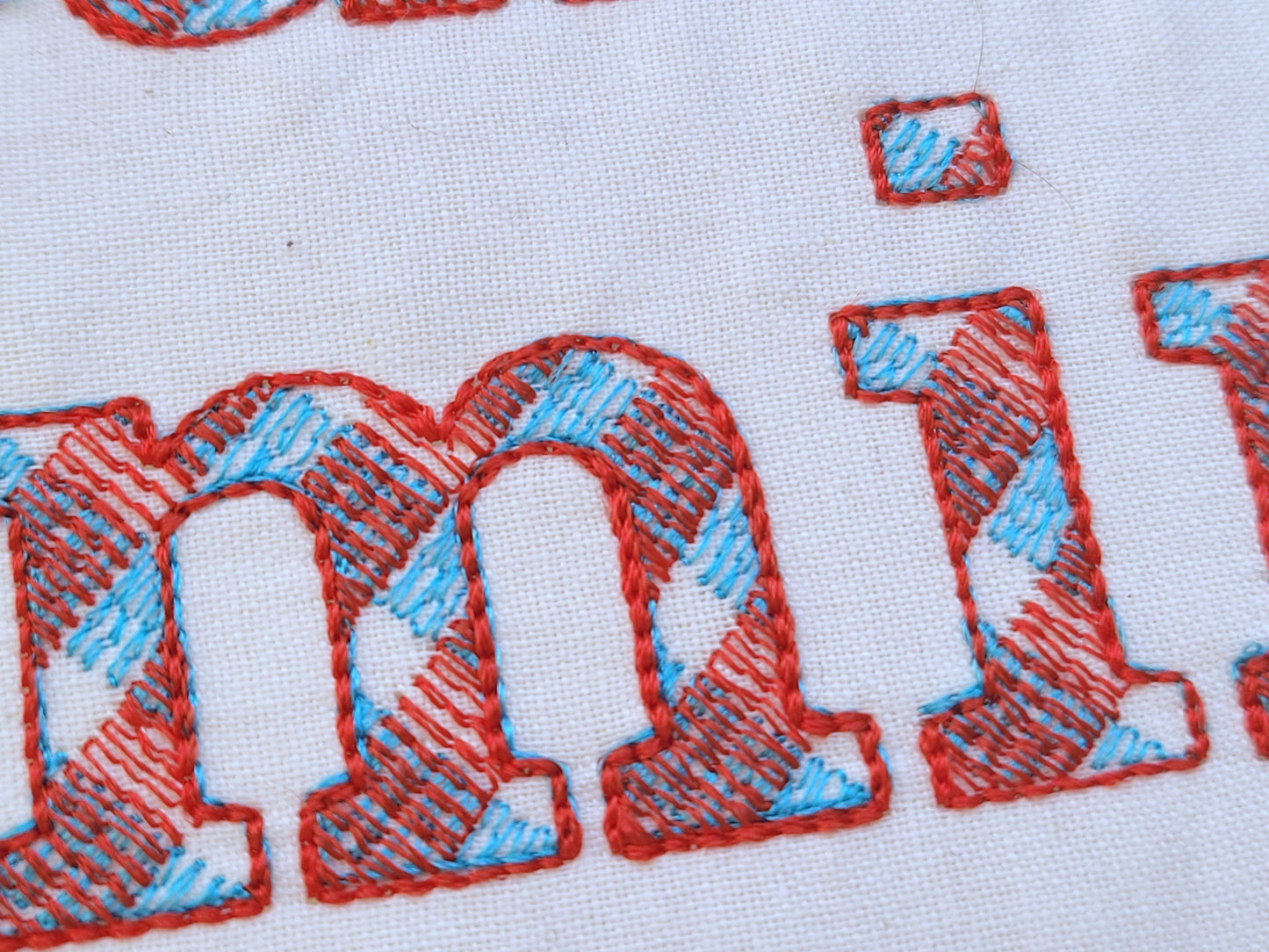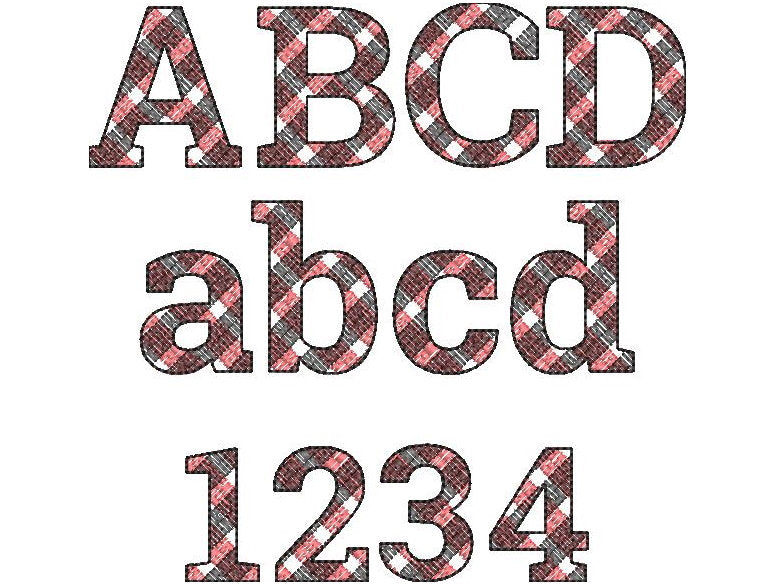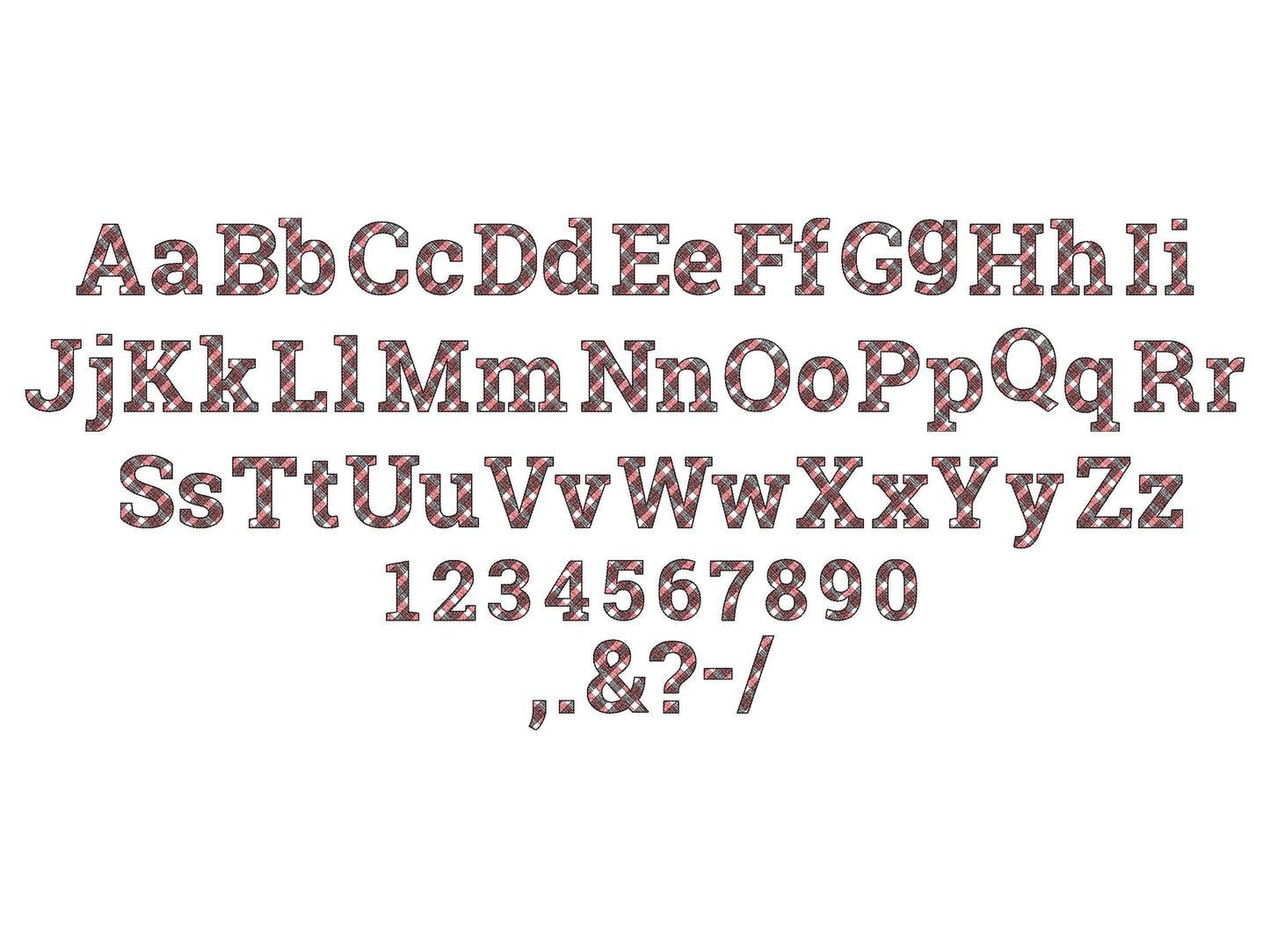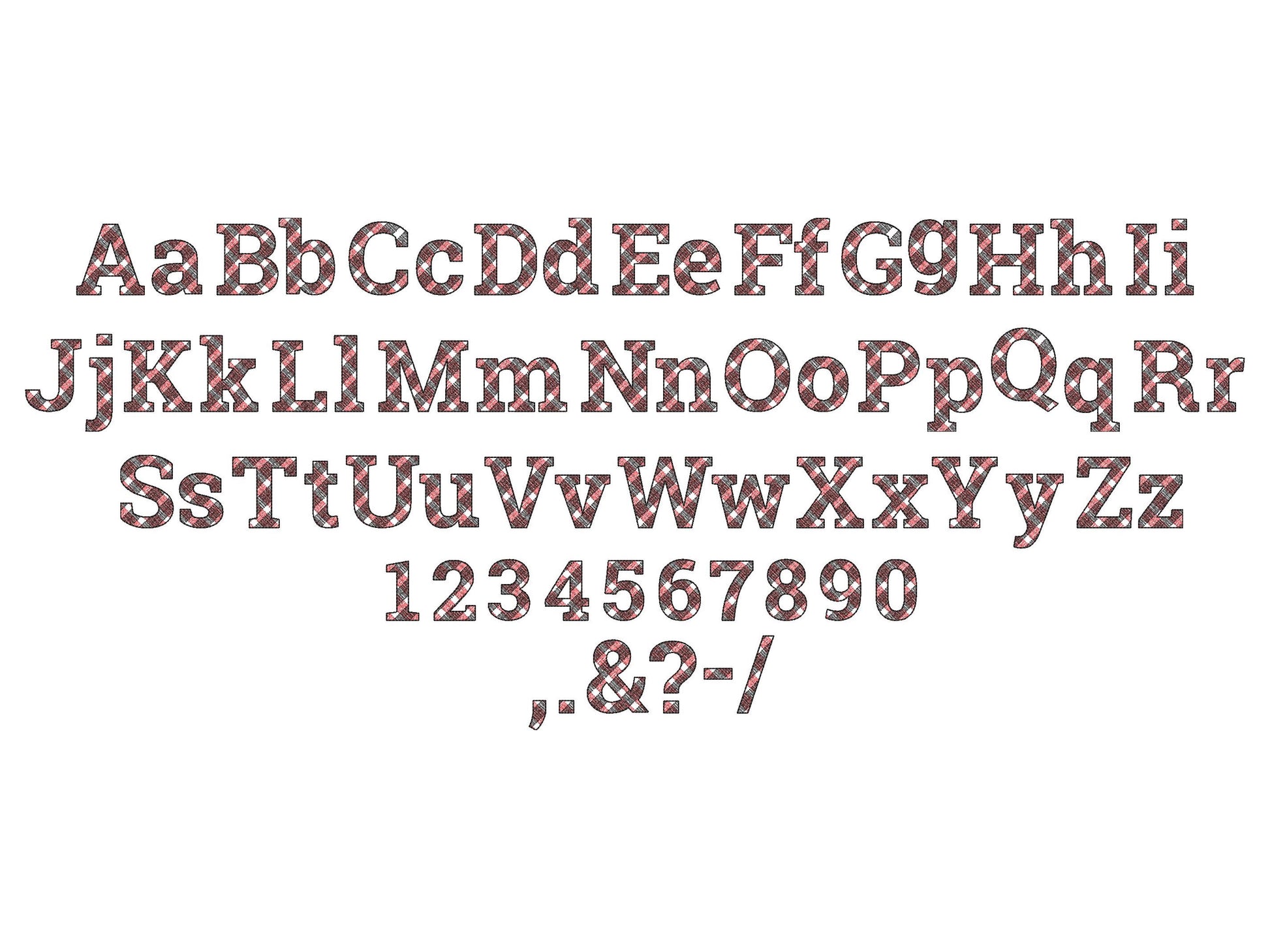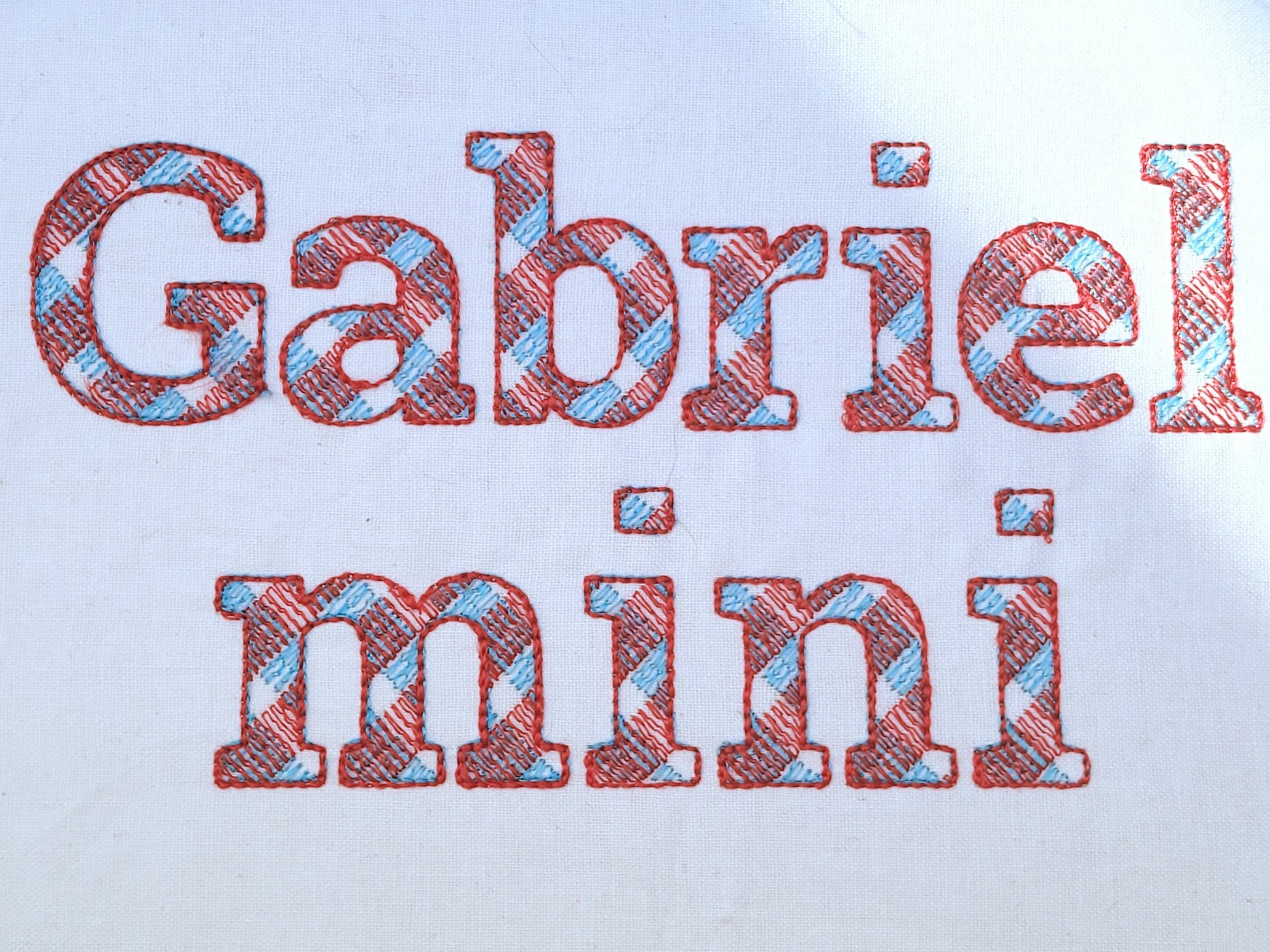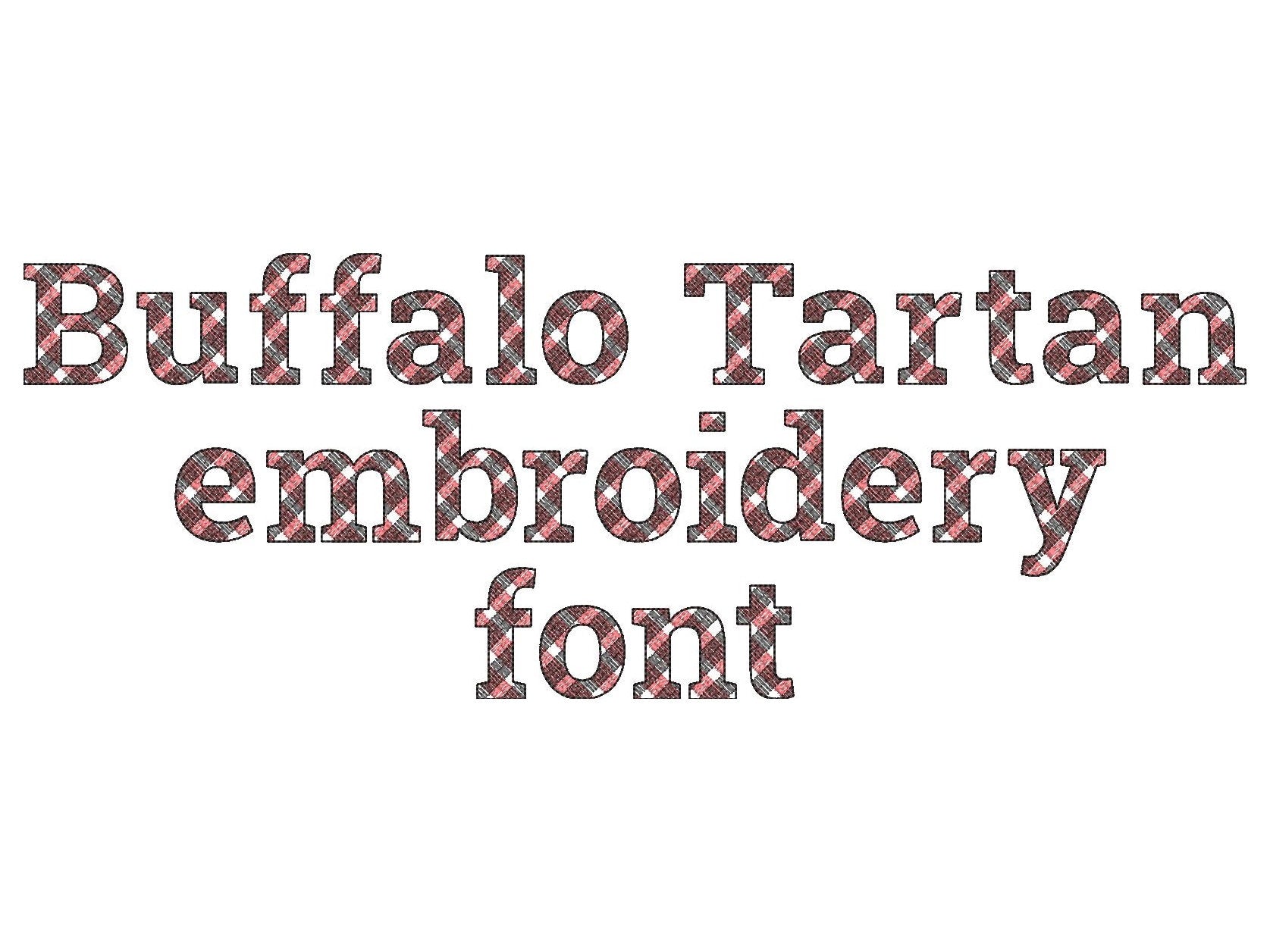
This is a quick stitch design, looks like laces, the background fabric looks through. Stunning effect.
Gingham lines are part of the embroidery.
Uppercase and lowercase letters, numbers, and punctuation.